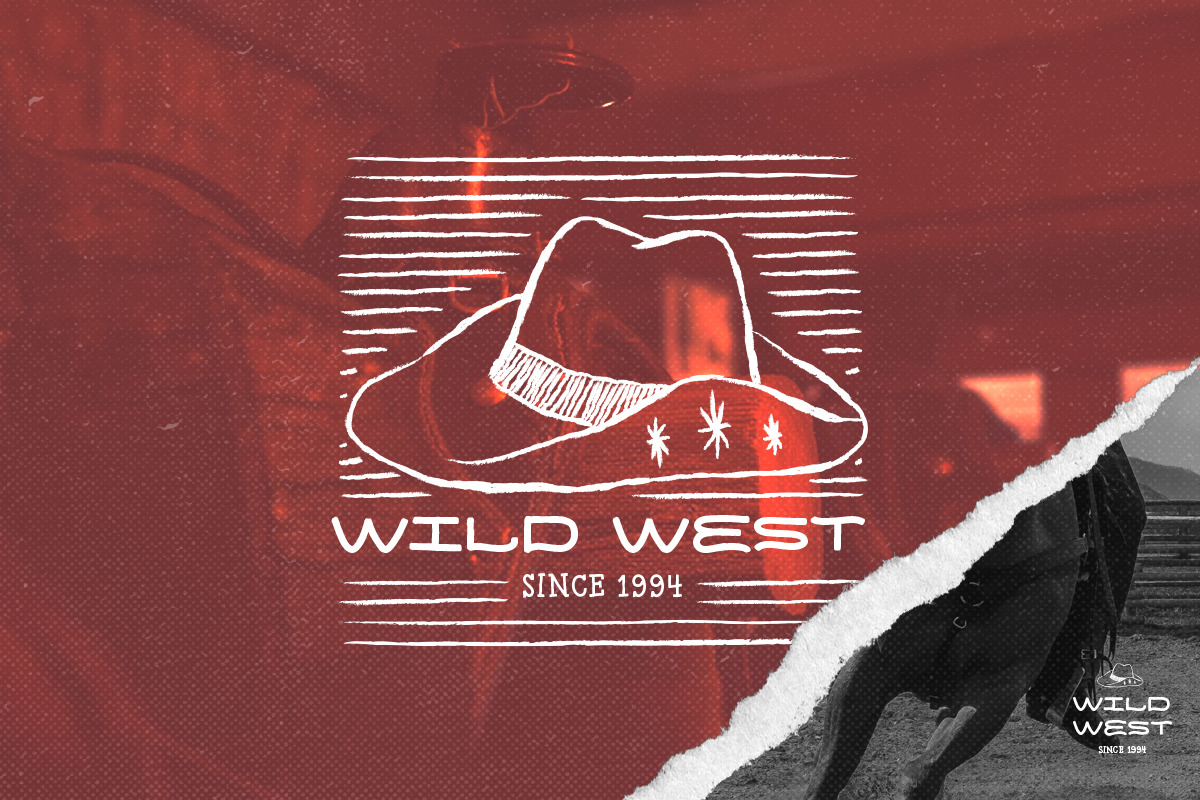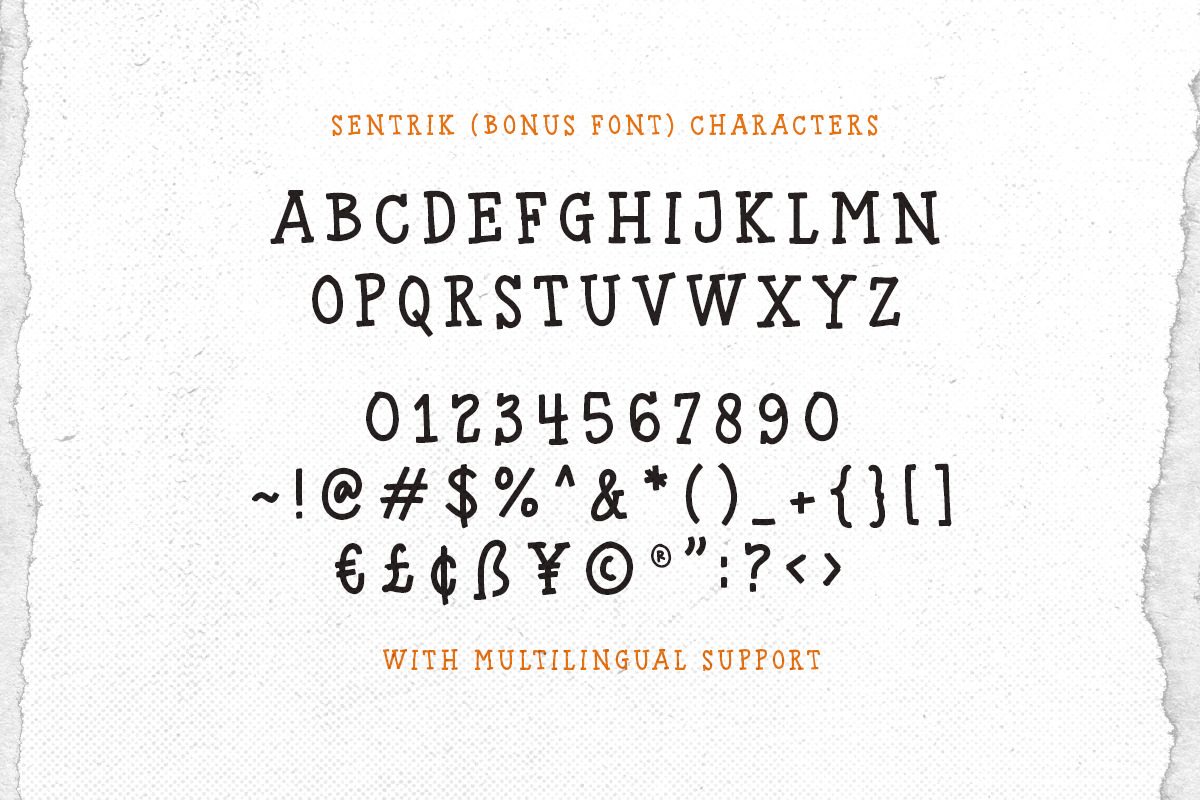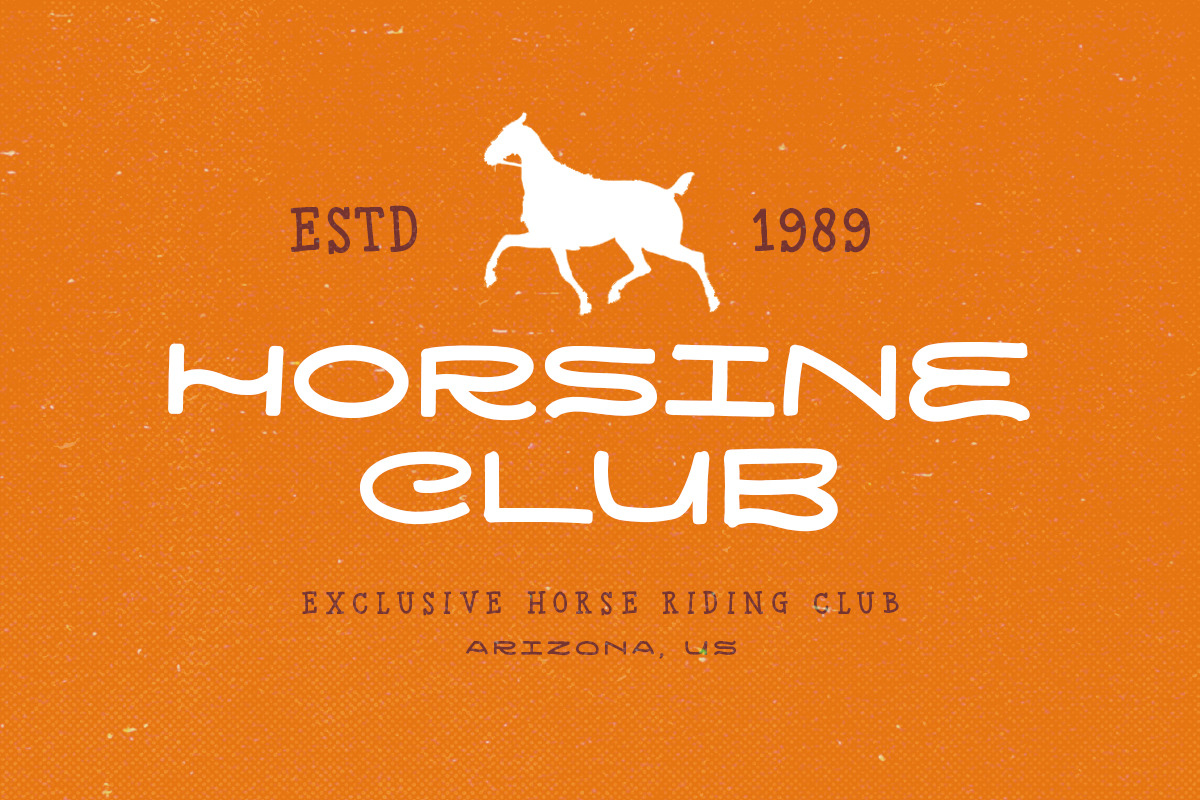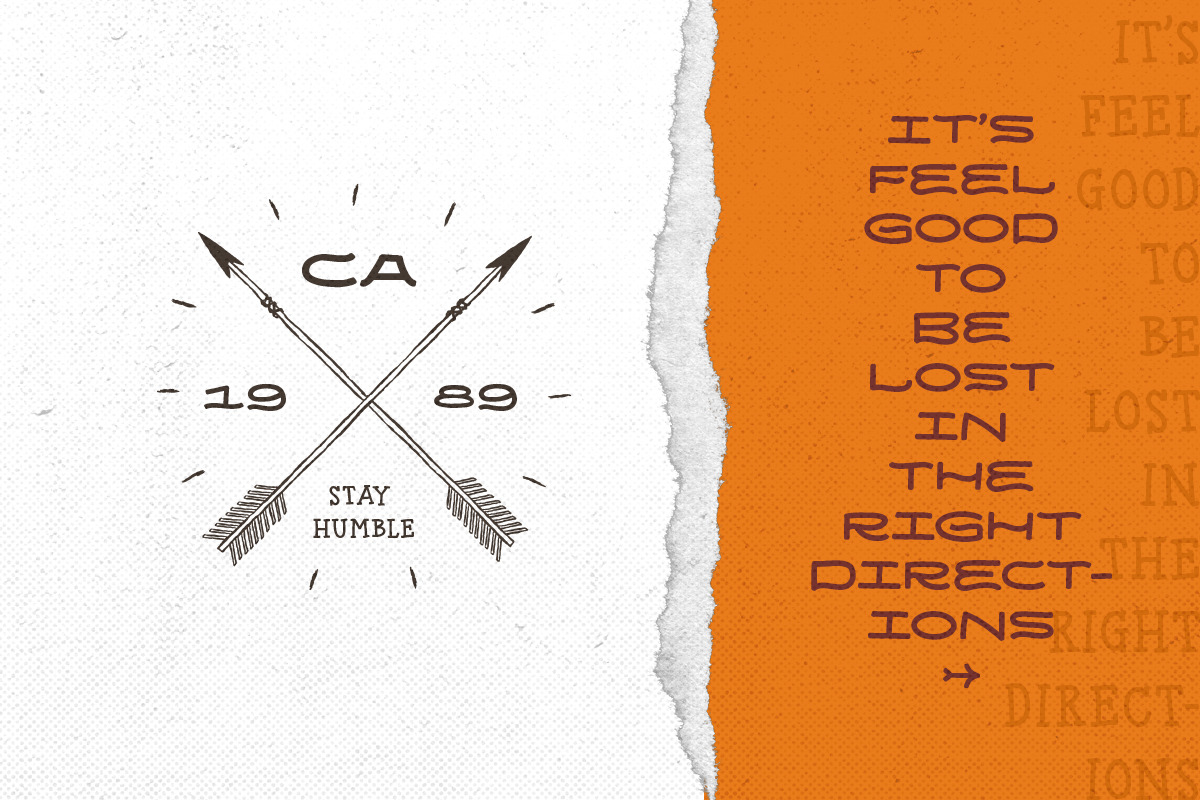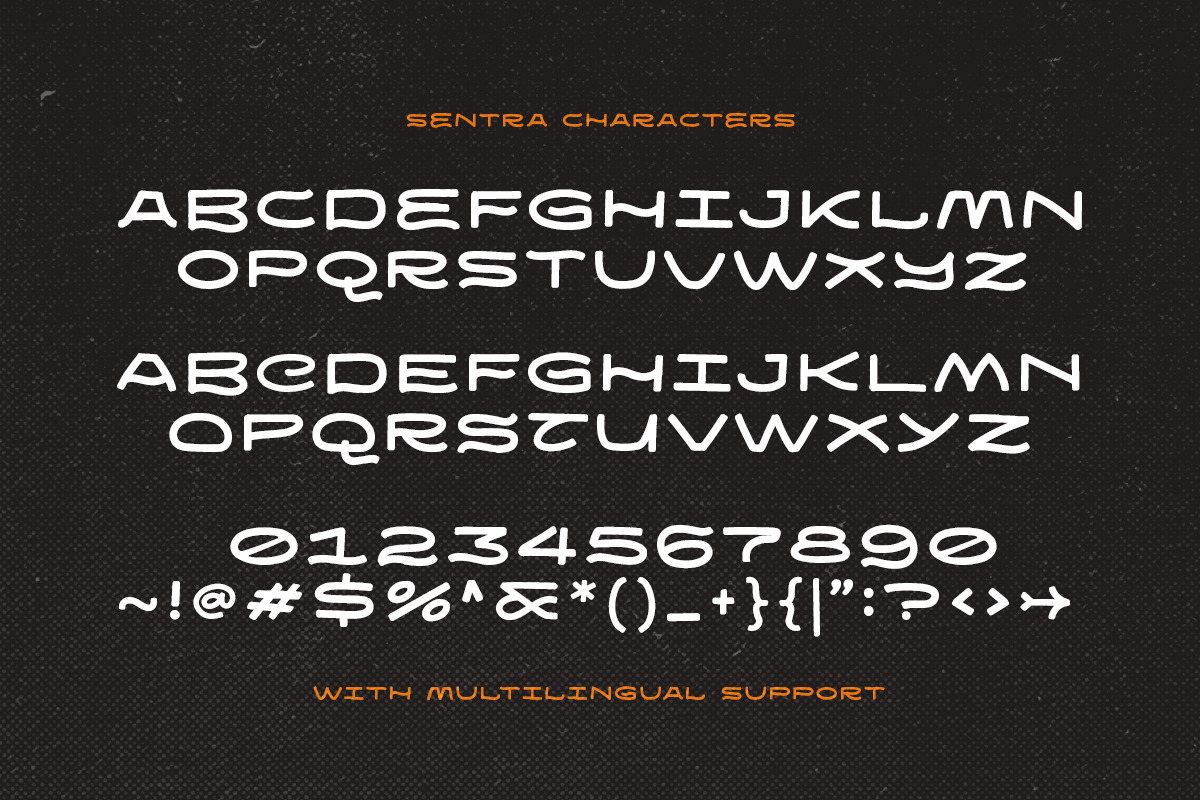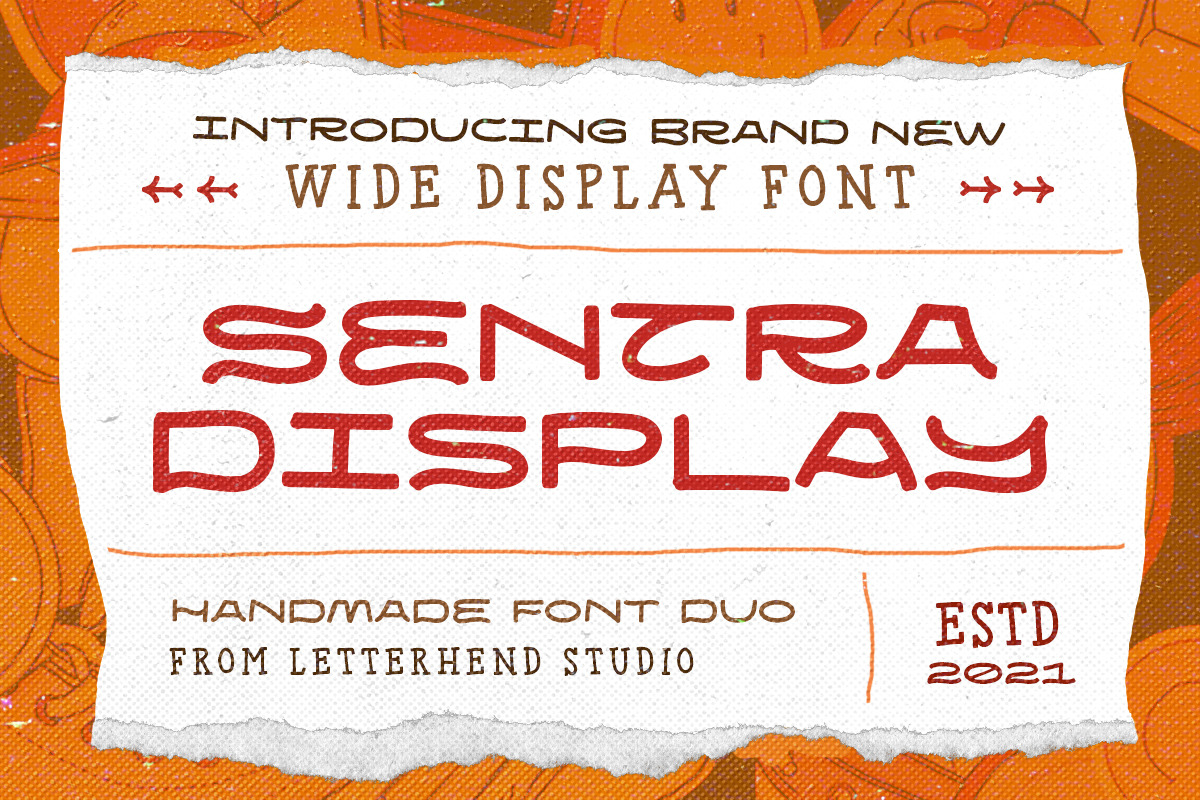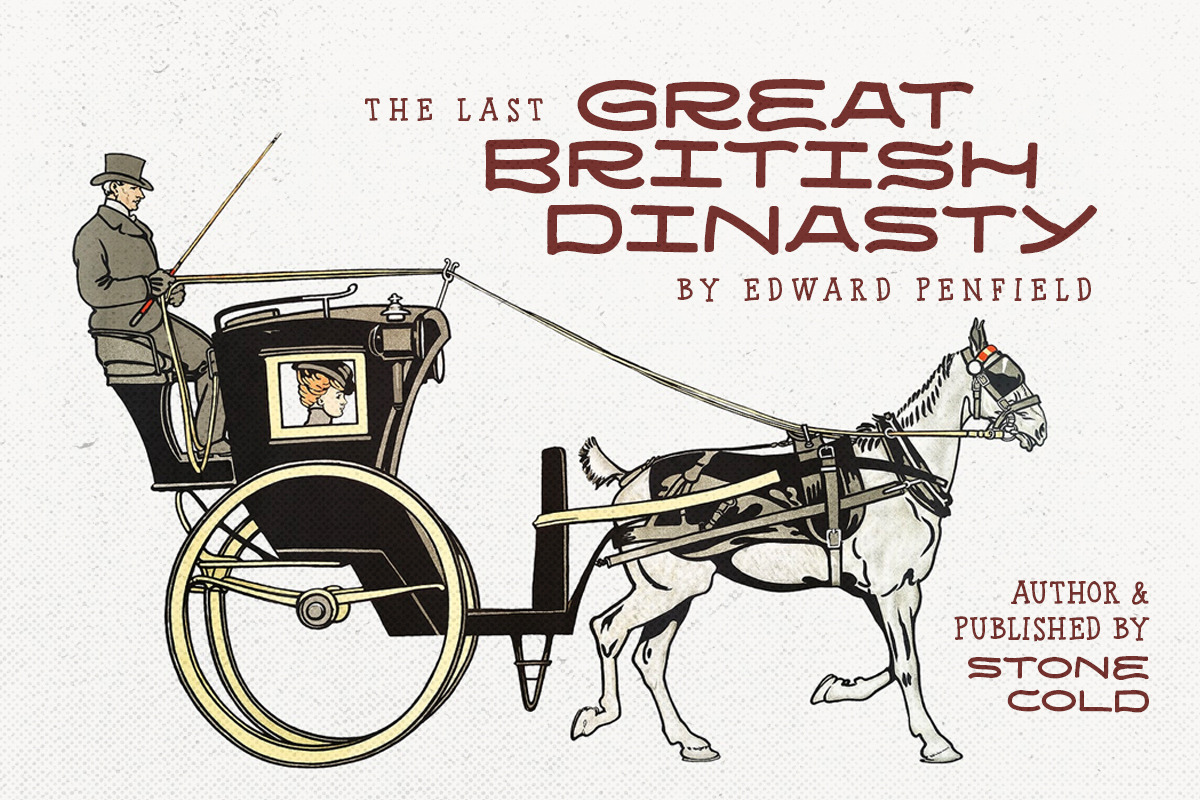
Sentra Display - Handmade Font Duo
Sentra Display is a handmade font duo with wide characters. This type of font perfectly made to be applied especially in logo, and the other various formal forms such as invitations, labels, logos, magazines, books, greeting / wedding cards, packaging, fashion, make up, stationery, novels, labels or any type of advertising purpose.
- two type of style
- alternates & ligatures